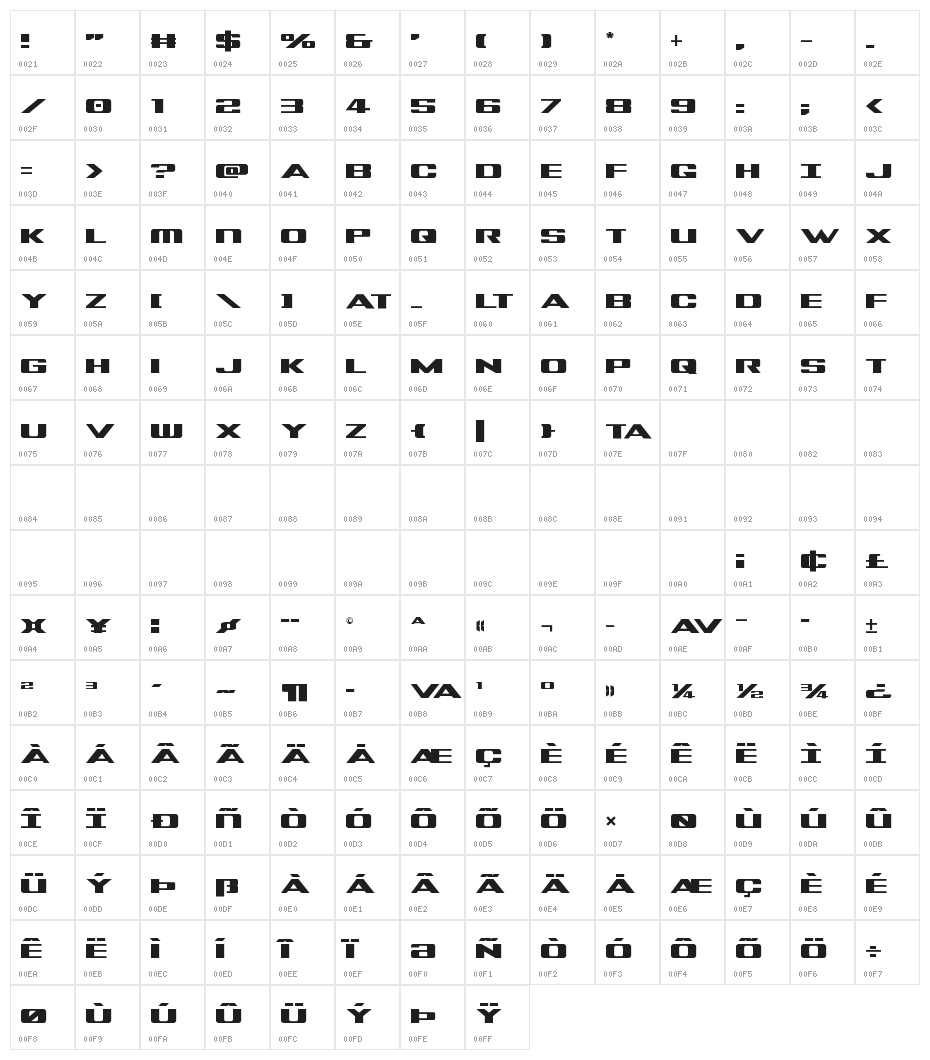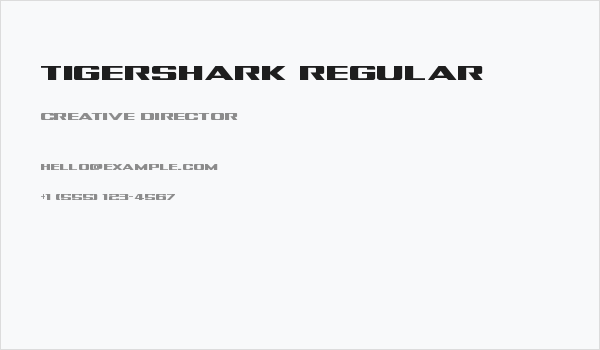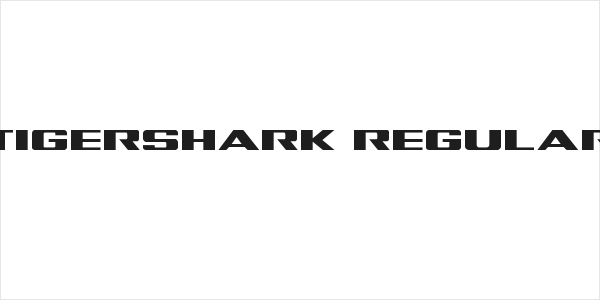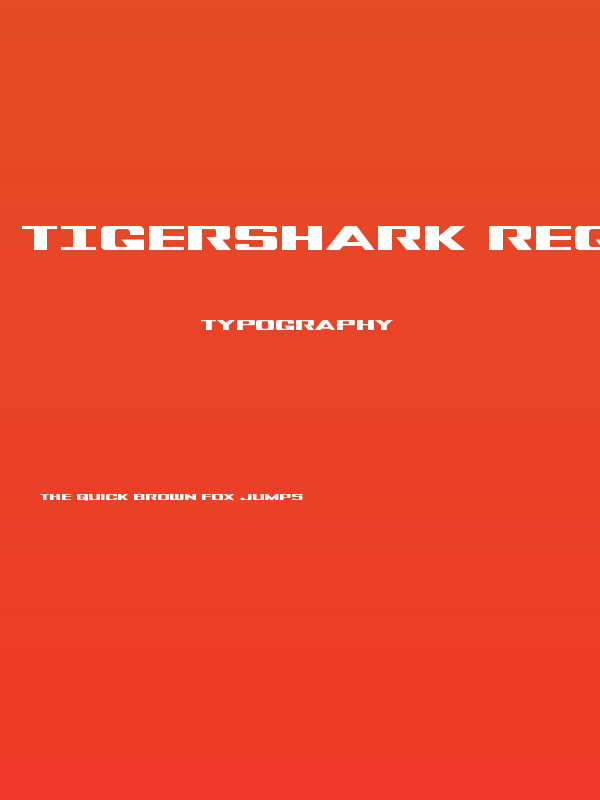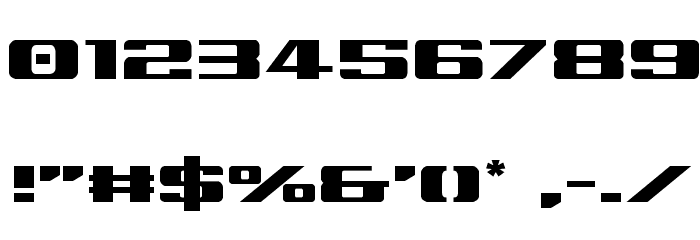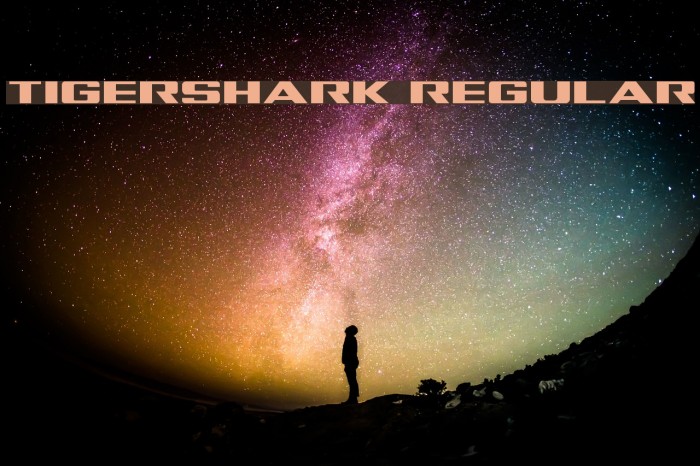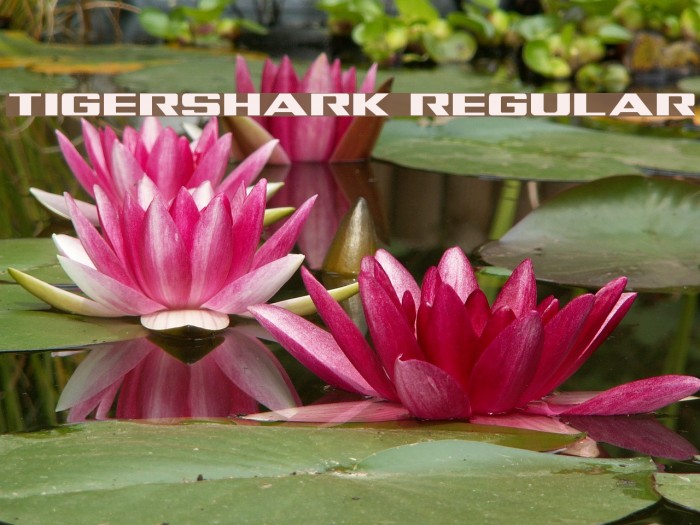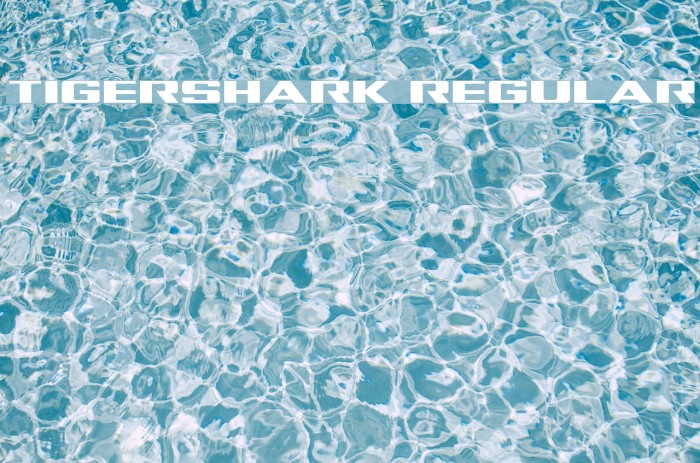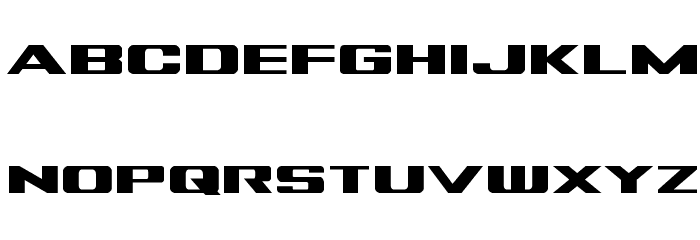
Tigershark Regular Font
Tigershark Regular Description
This font features a bold and assertive style with a modern, geometric design. The characters are constructed with strong, angular lines and a consistent stroke width, giving it a robust and impactful appearance. The uppercase and lowercase letters maintain a uniformity that enhances readability while still offering a unique flair. The numerals and special characters are designed to match the boldness of the alphabet, ensuring a cohesive look across all text. This font is ideal for making a statement, with its striking presence and clear legibility.
| Proposed Projects | Ideal for branding, headlines, posters, and any design requiring a strong visual impact. |